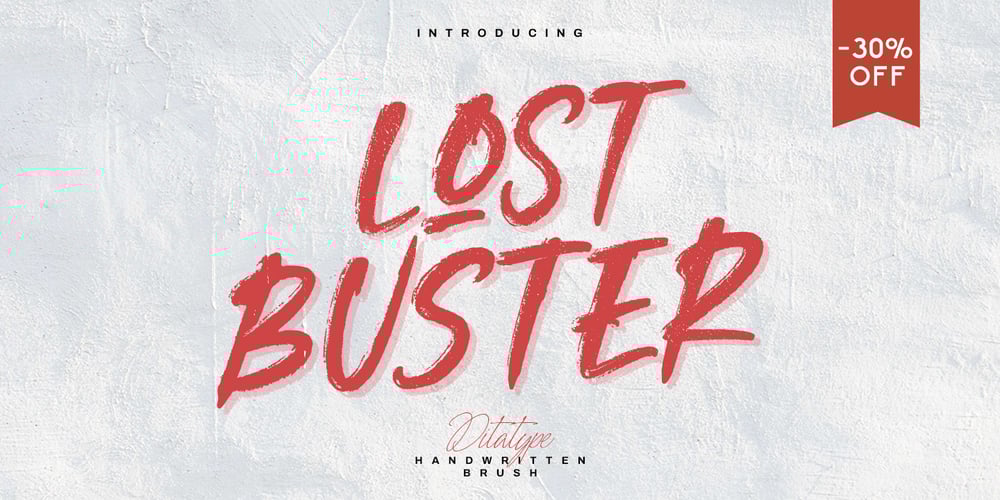
Lost Buster
Lost Buster font
Lost Buster Font Family was designed by Donis Miftahudin and published by Ditatype. Lost Buster contains 1 styles and family package options. Your designs are your self expressions and should represent your personal styles. Without the right font, it will be hard to be prominent and to impress your audience. Lost Buster is here to assist you.Lost Buster is a capitalized handwritten font in brush details to produce a manual brush-looking display adding creativity values to designs with this font. It also gives more personal, natural impressions to make people feel close to the brand or design displayed. The advantages of a brush-detailed handwritten font are first, the unique display to get the brand or the design easily remembered and noticed, and second, legible, applicable for various media. You can also apply this font for various text sizes for its legibility reason and enjoy the available features here.Features: Alternates Multilingual Supports PUA Encoded Numerals and Punctuations Lost Buster fits best for various design projects, such as brandings, posters, banners, headings, magazine covers, quotes, invitations, name cards, printed products, merchandise, social media, etc. Find out more ways to use this font by taking a look at the font preview.Thanks for purchasing our fonts. Hopefully, you have a great time using our font. Feel free to contact us anytime for further information or when you have trouble with the font. Thanks a lot and happy designing.